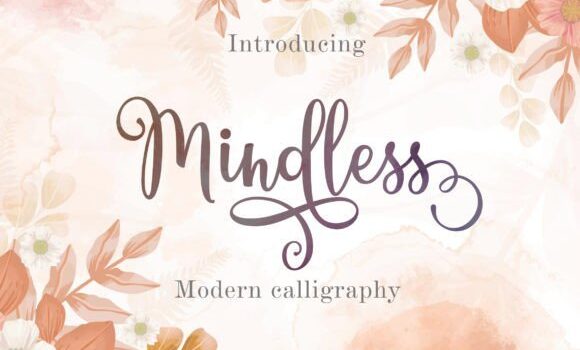
mindless
Mindless Font – Free Download Introduction to Mindless Font Font Mindless Script is a delicate and elegant script font with a modern and sophisticated appearance. 📸 Preview Gallery 4 images 📌 Product Name Mindless Font 👤 Author Amarlettering 📂 Category